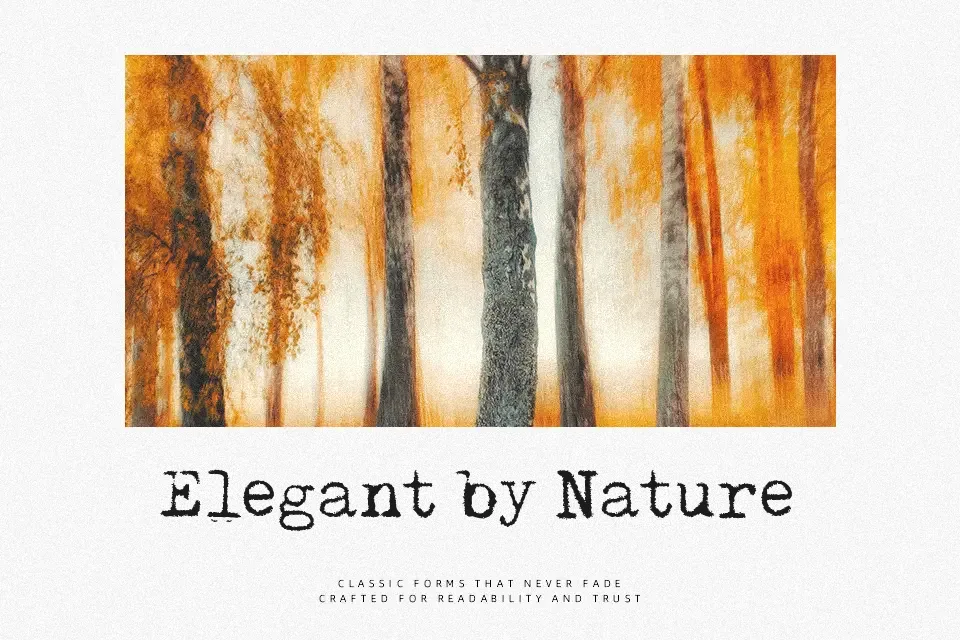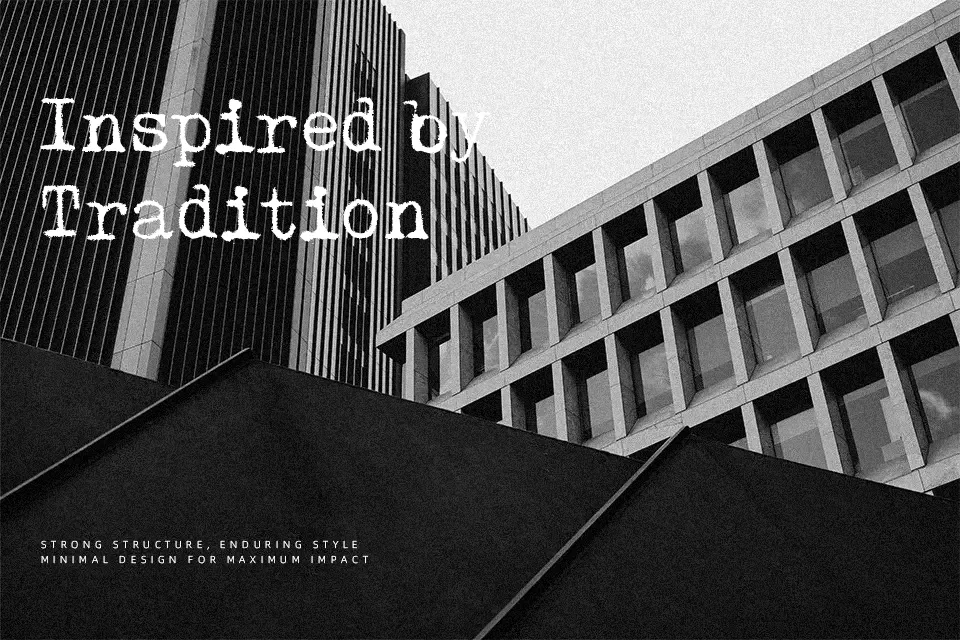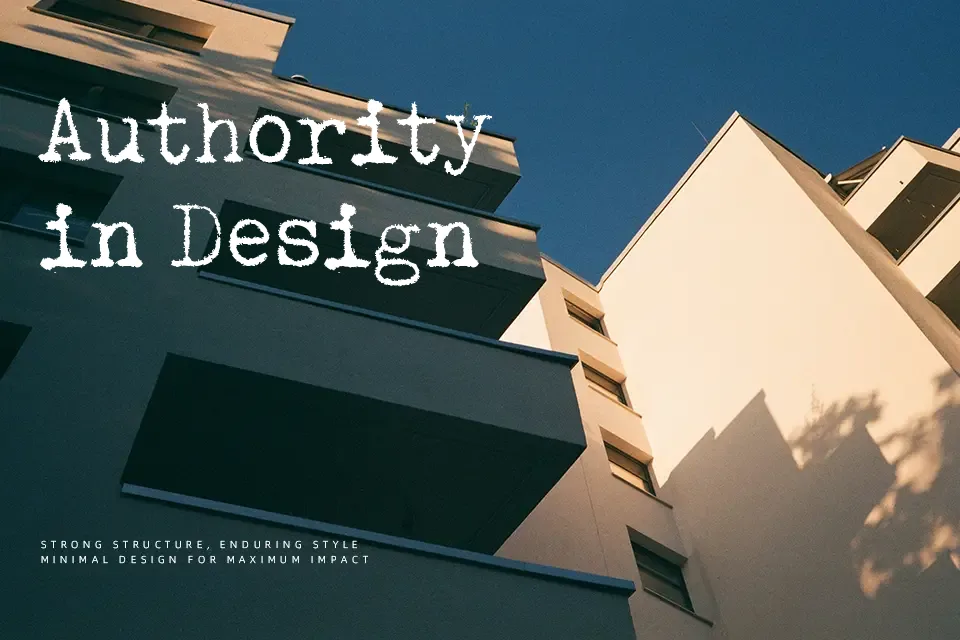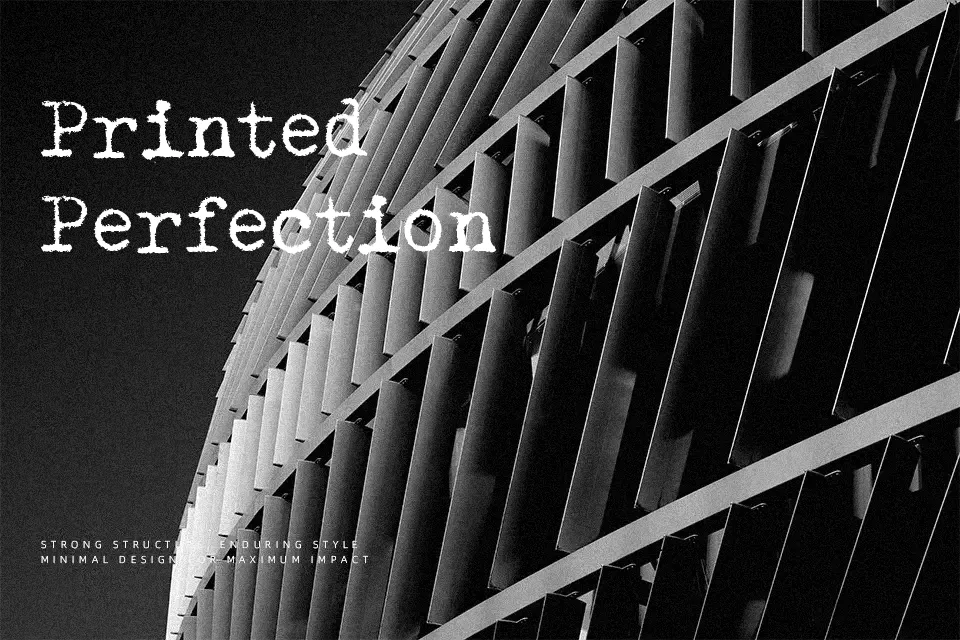
Pelkistettya todellisuutta Font
Designed by Juha Korhonen
Pelkistettya todellisuutta Font works best when displayed at larger sizes, where its typewriter-inspired serif forms and irregular distressed texture can be read clearly. The strokes appear firm but uneven, giving each character a printed, weathered edge. Consistent character widths create a measured rhythm, while the compact proportions keep short lines visually contained. Uppercase letters, numerals, and punctuation support a convincing mechanical appearance for titles and prop-style text. The spacing helps maintain order in short headings, although the textured outlines can make smaller captions harder to scan. It is a practical choice for designs that need an aged document-like presence rather than smooth contemporary clarity.
Best For: vintage poster headlines,fictional correspondence props,album cover titles,retro packaging labels
Perfect for headline, music, and packaging, with a rough and decorative style.